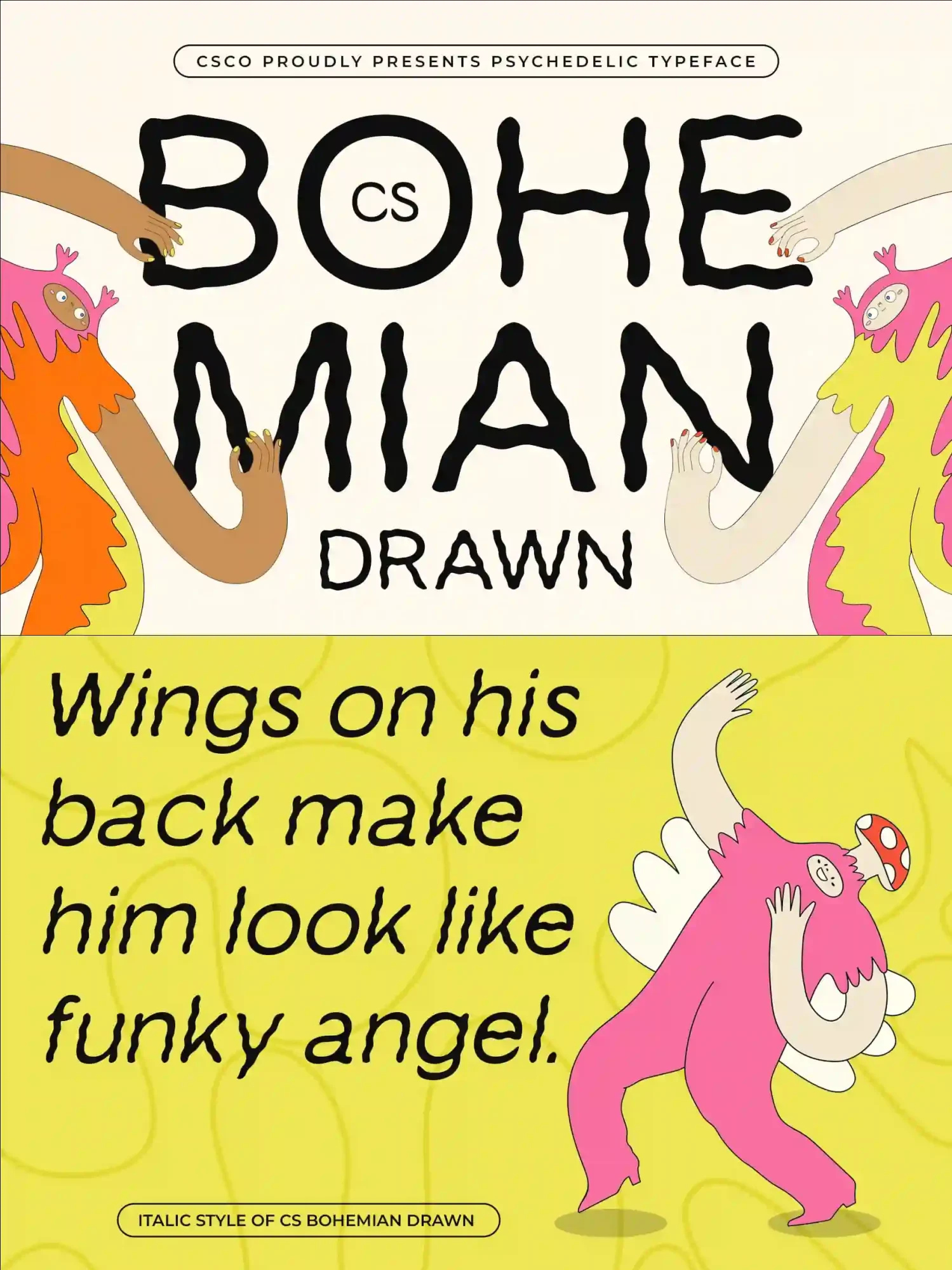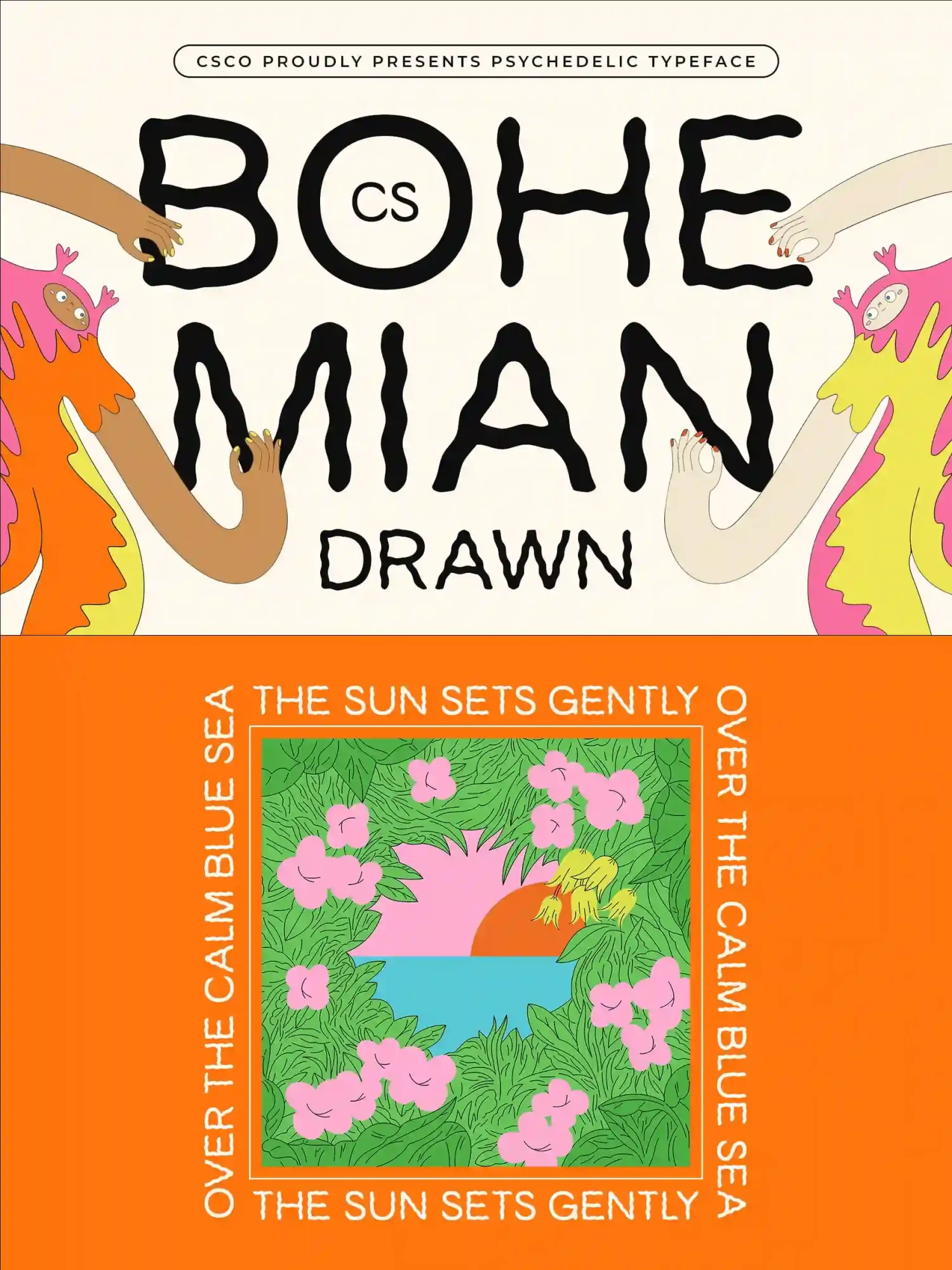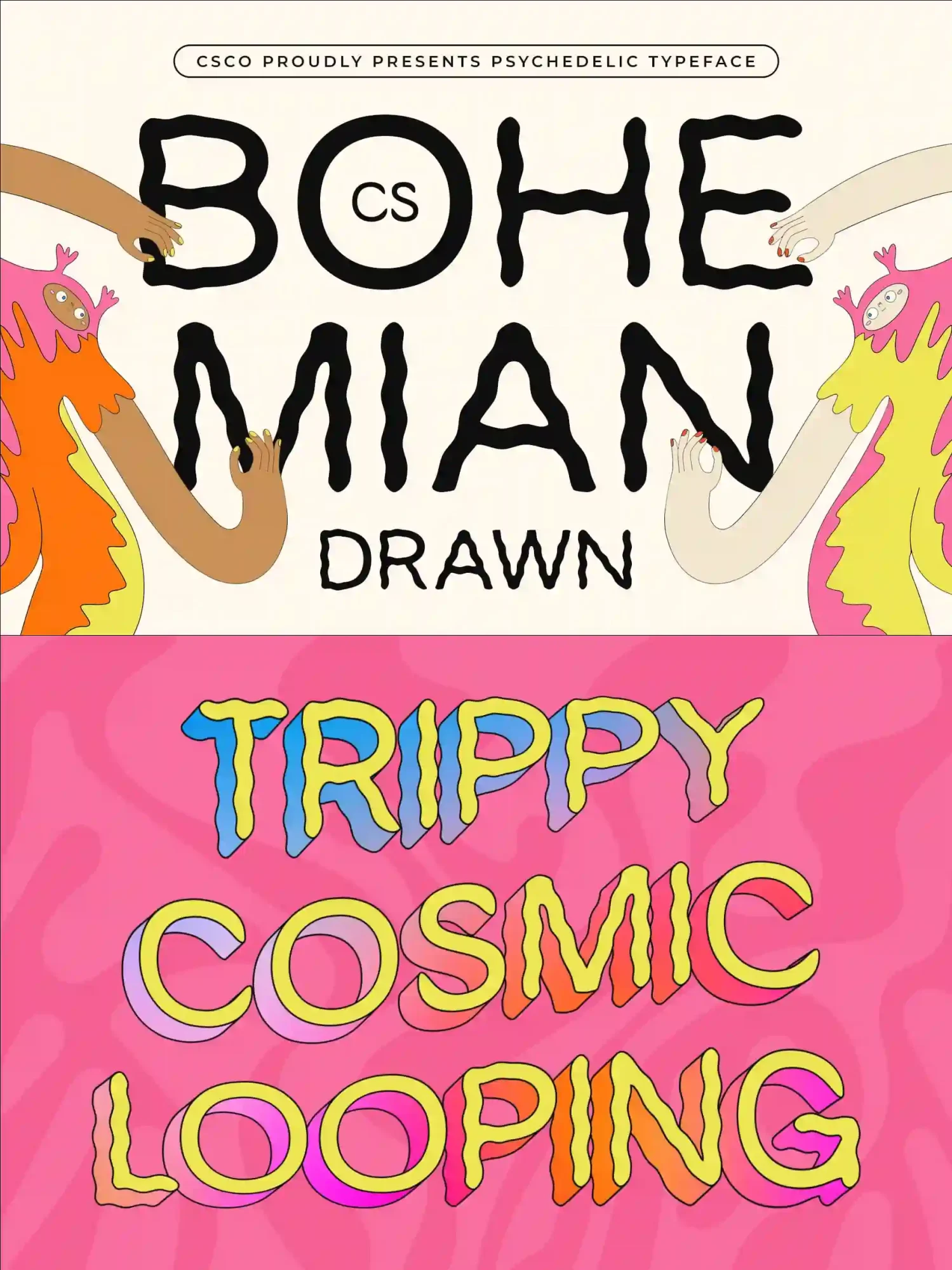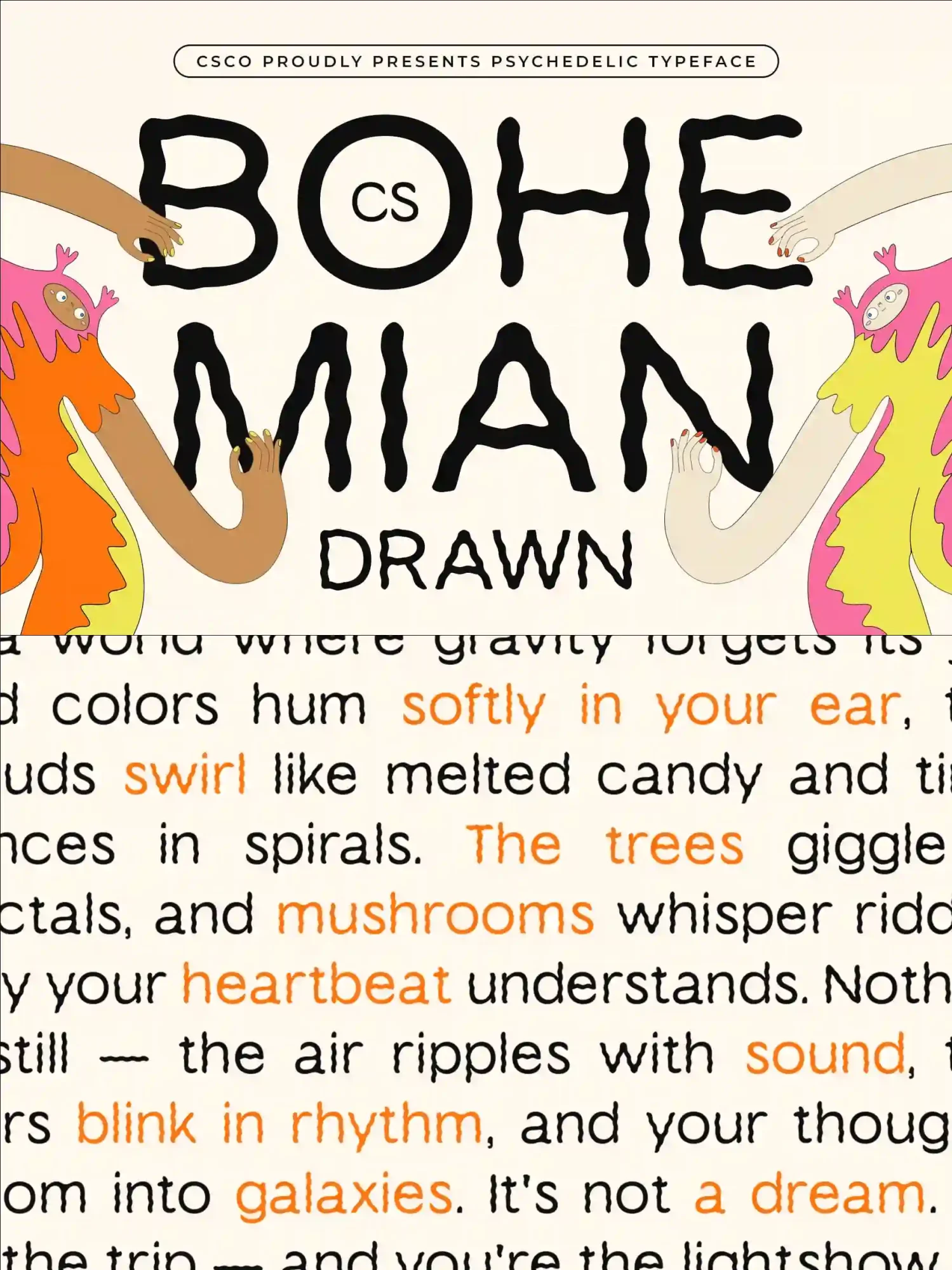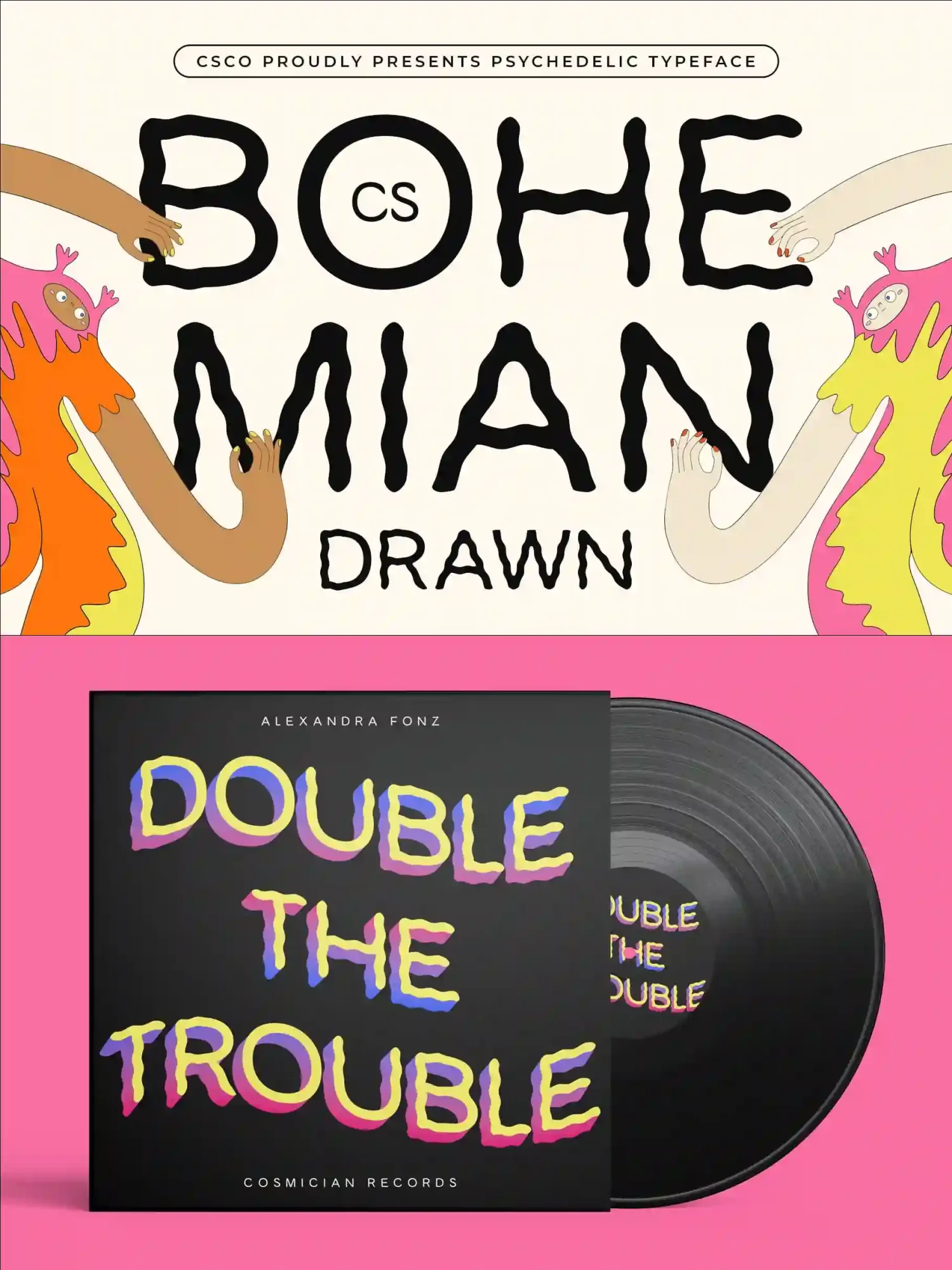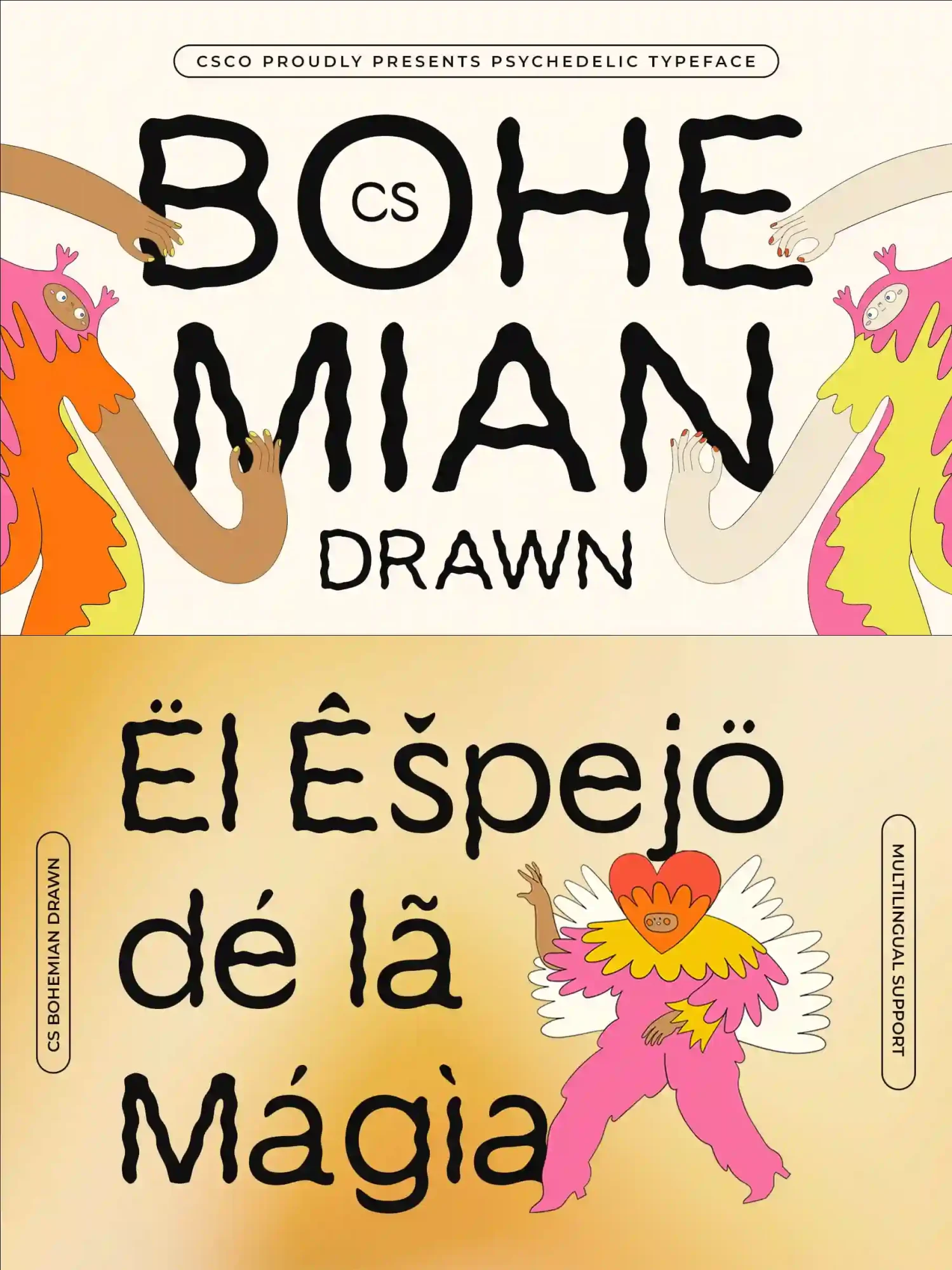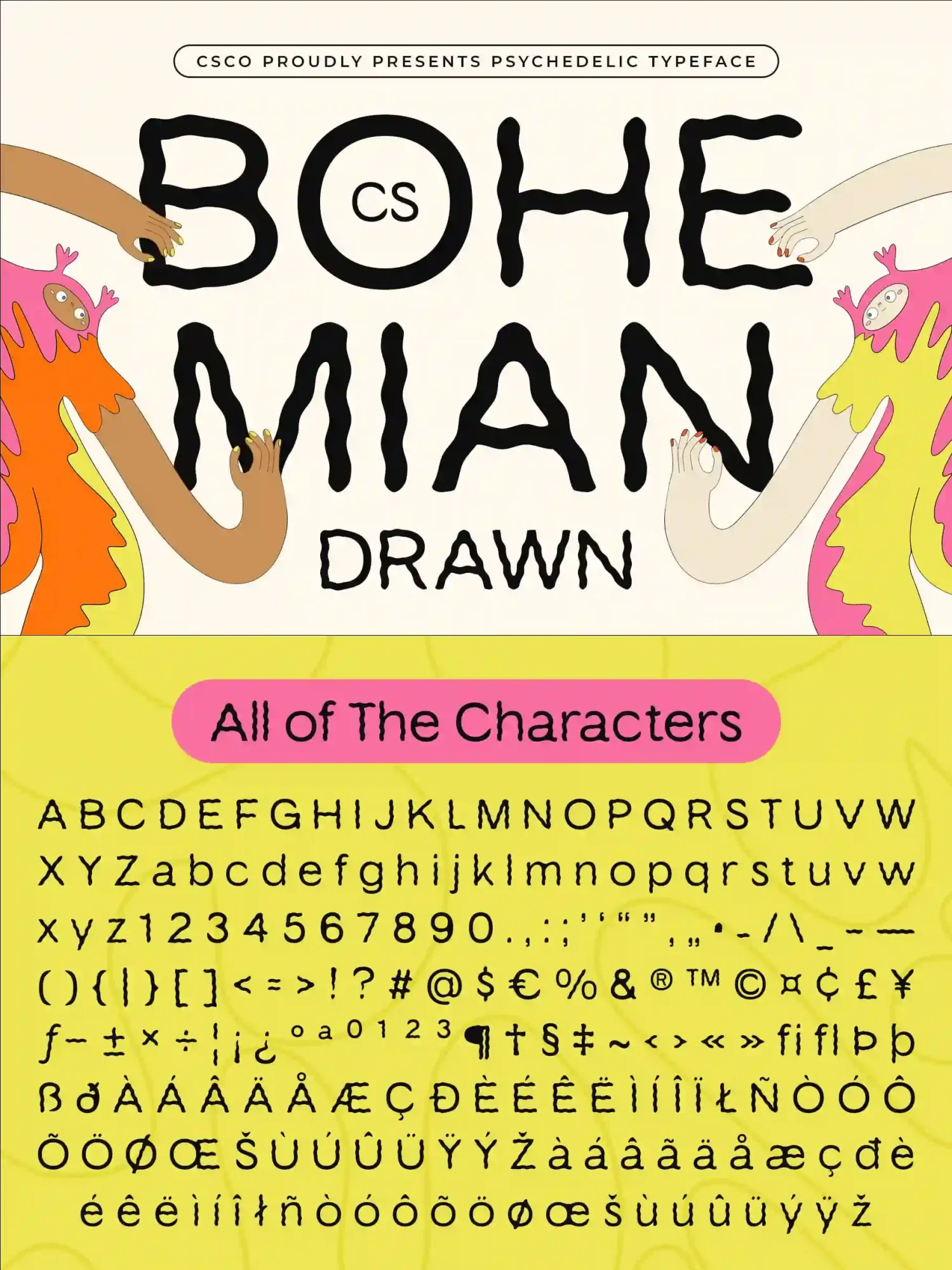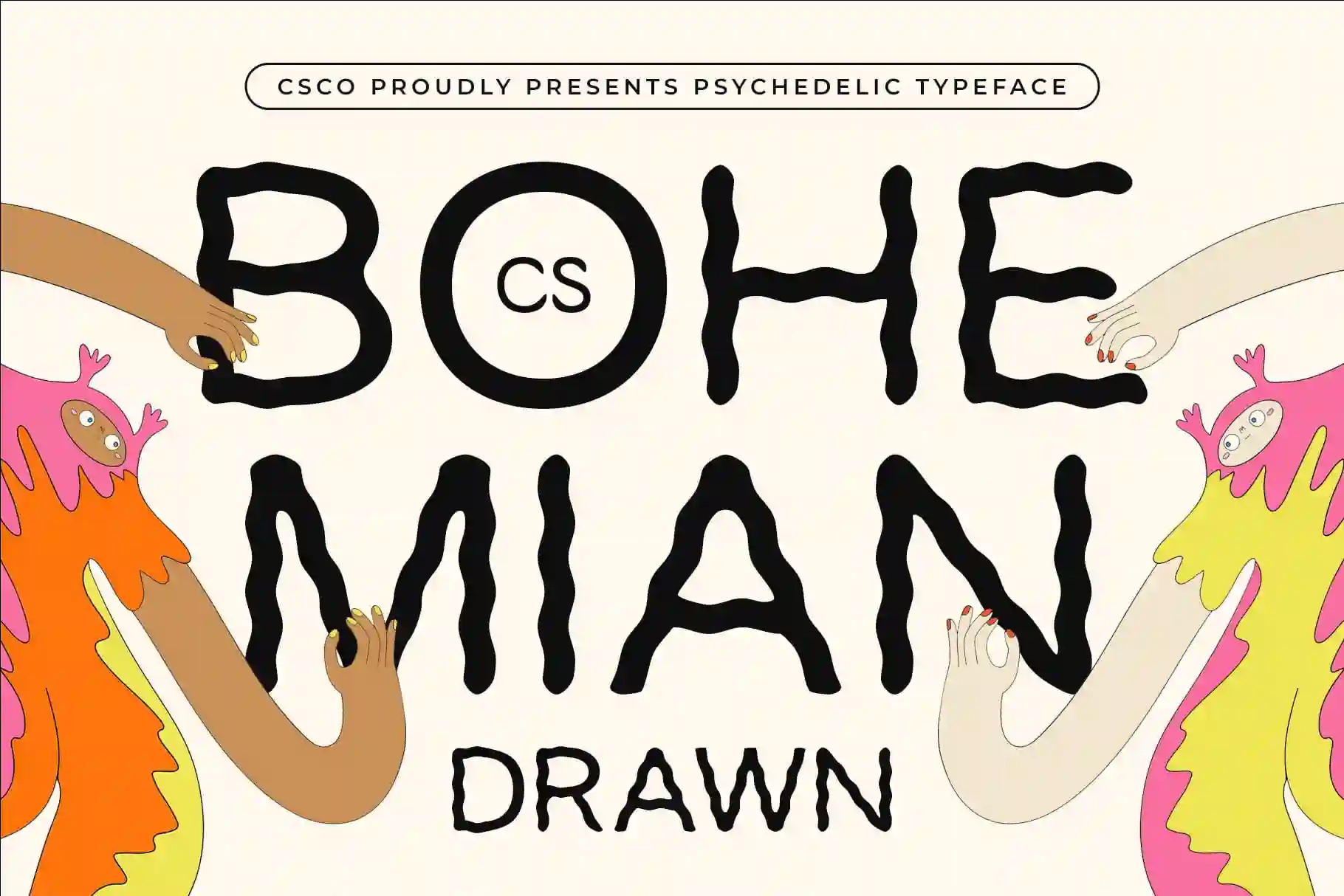
CS Bohemian Drawn – Psychedelic Expression Meets Modern Elegance
Contemporary Sans Serif with a Psychedelic Twist
CS Bohemian Drawn is a modern sans serif display font that fuses clean structure with bold psychedelic influences. Its letterforms feature dynamic curves, warped silhouettes, and expressive shapes that echo the free-spirited energy of 1960s design—reimagined for today’s creative world.
Hand-Drawn Effect for Artistic Texture
The drawn effect adds an organic, handcrafted quality that enhances its artistic charm. Each curve and contour feels intentional and human, giving the font a raw yet polished personality perfect for experimental designs with emotional depth.